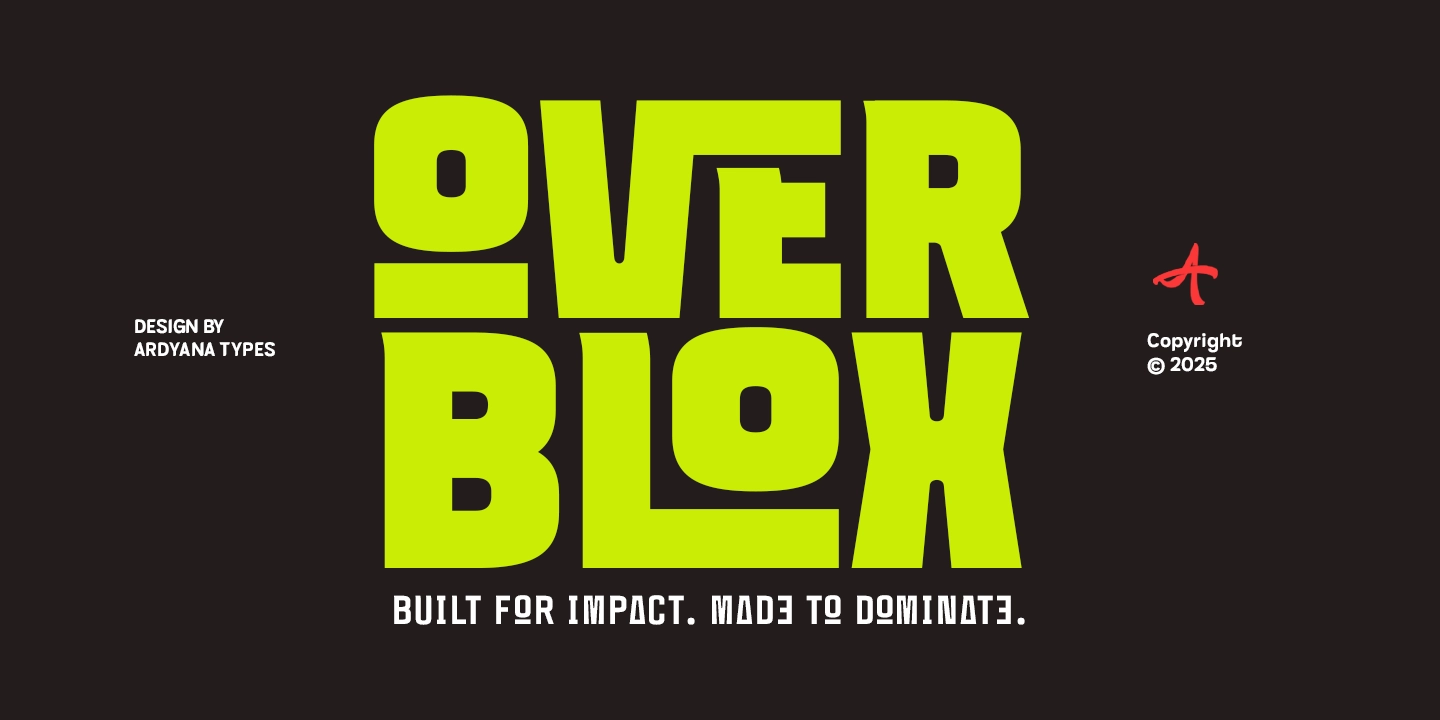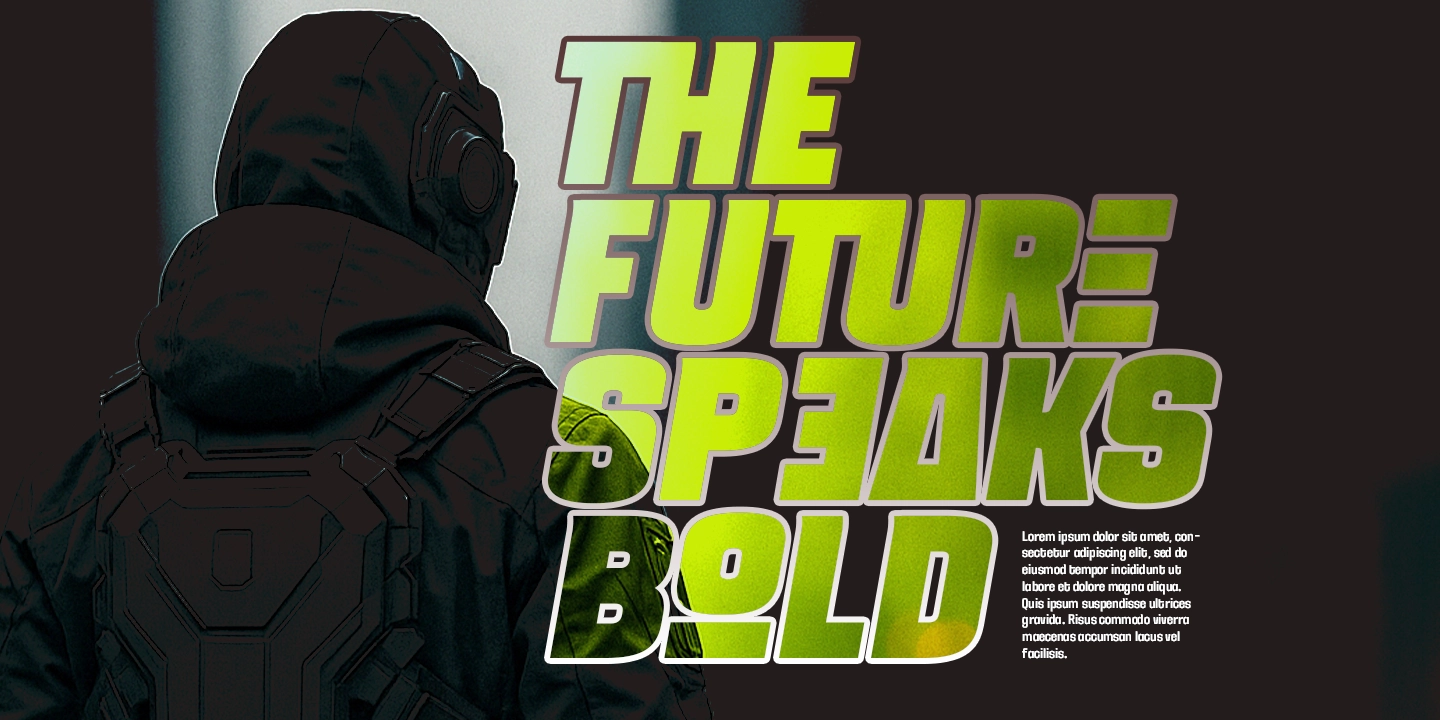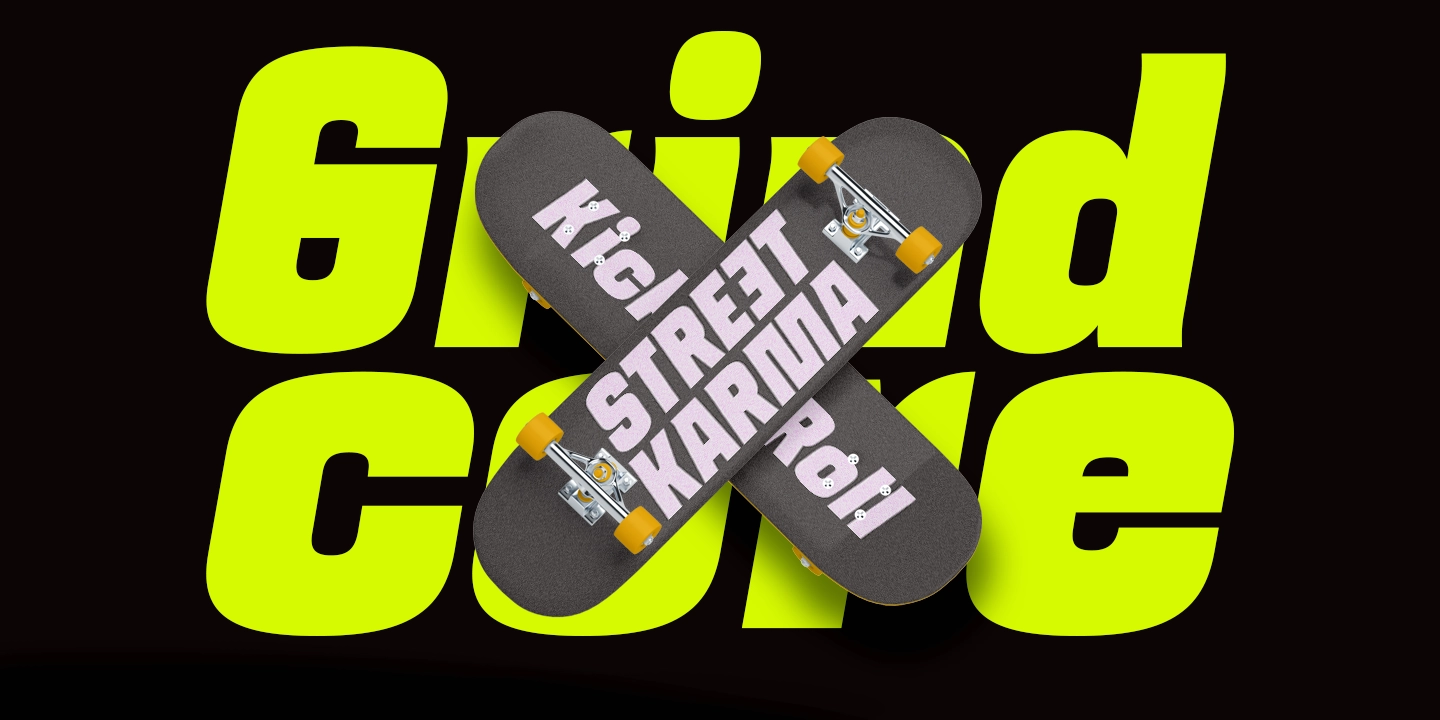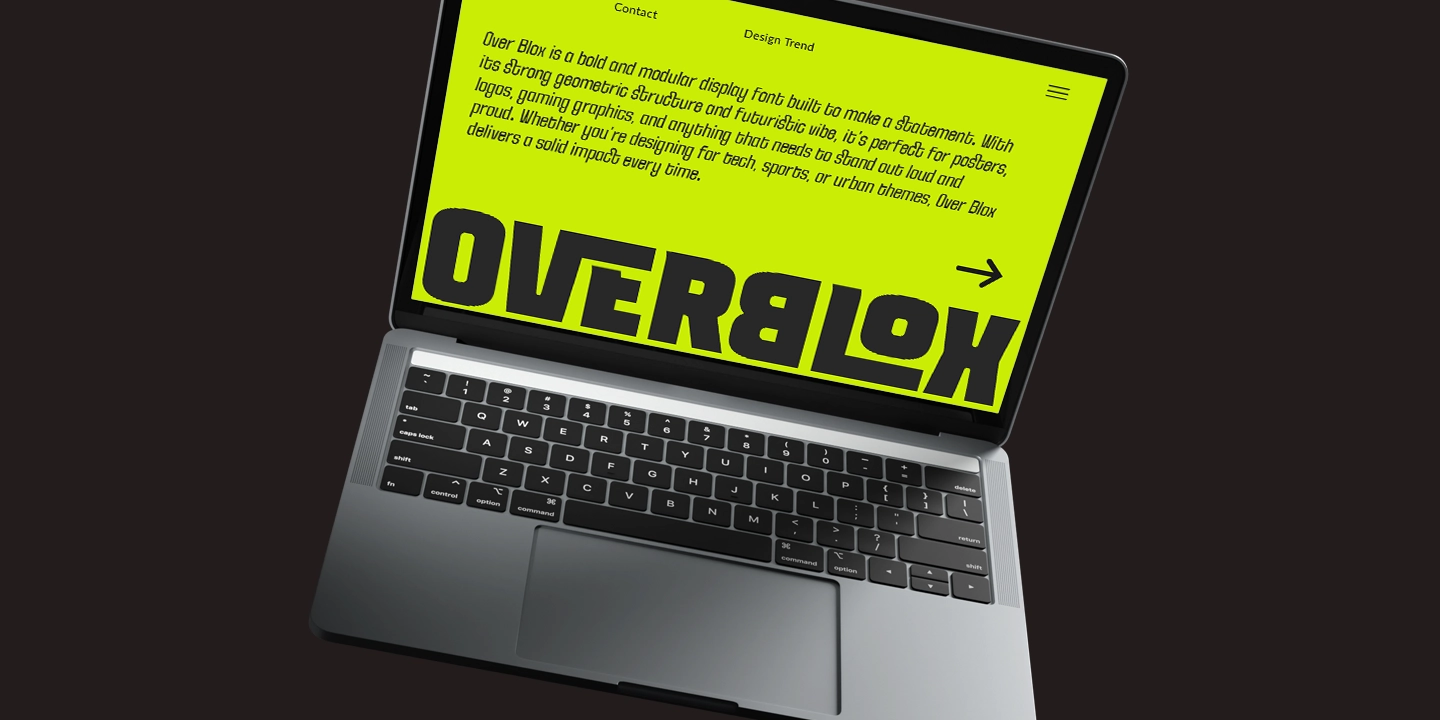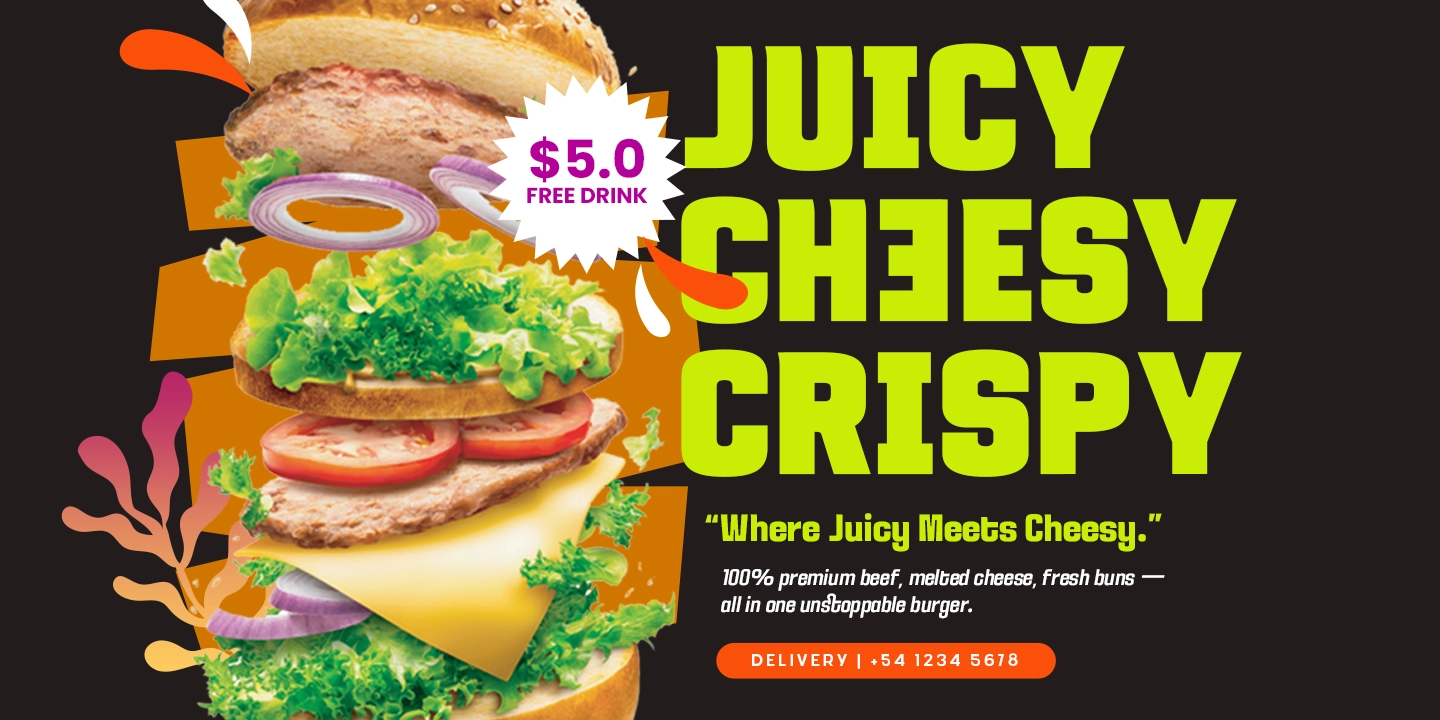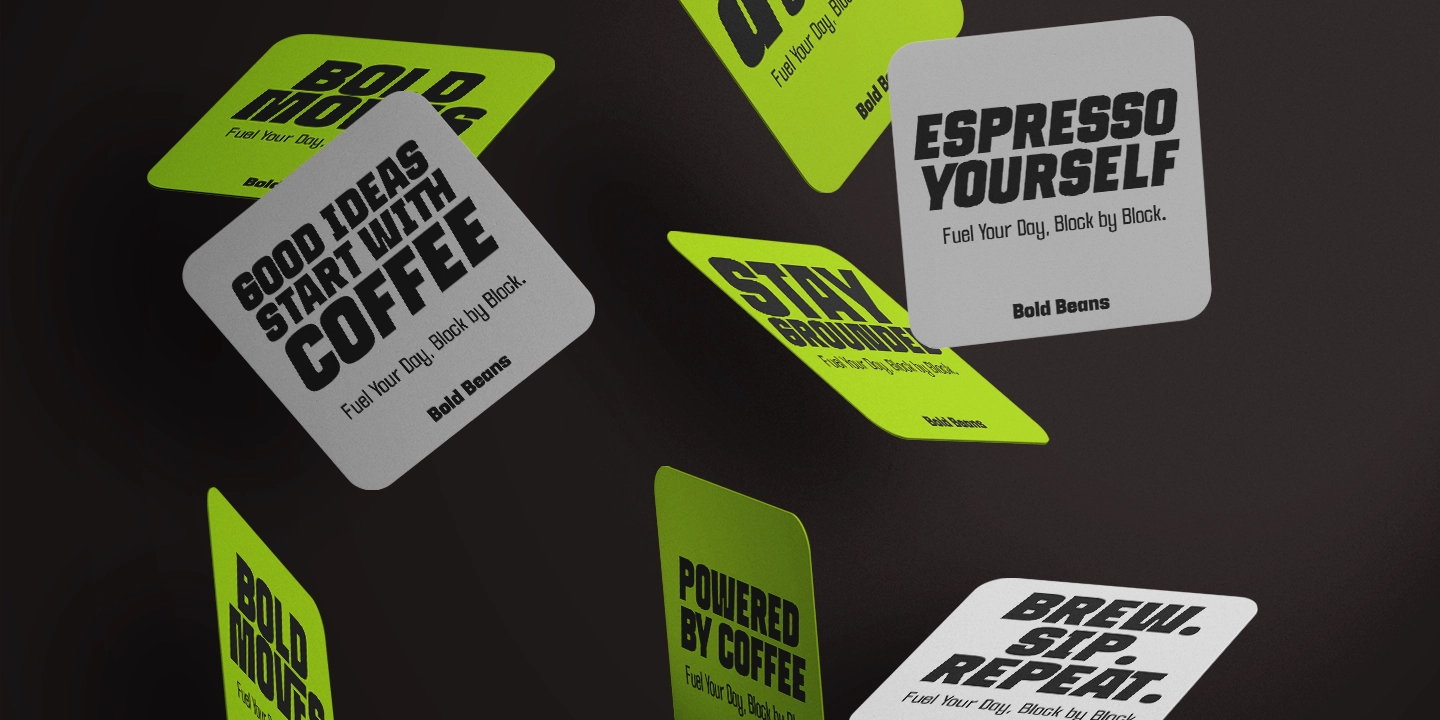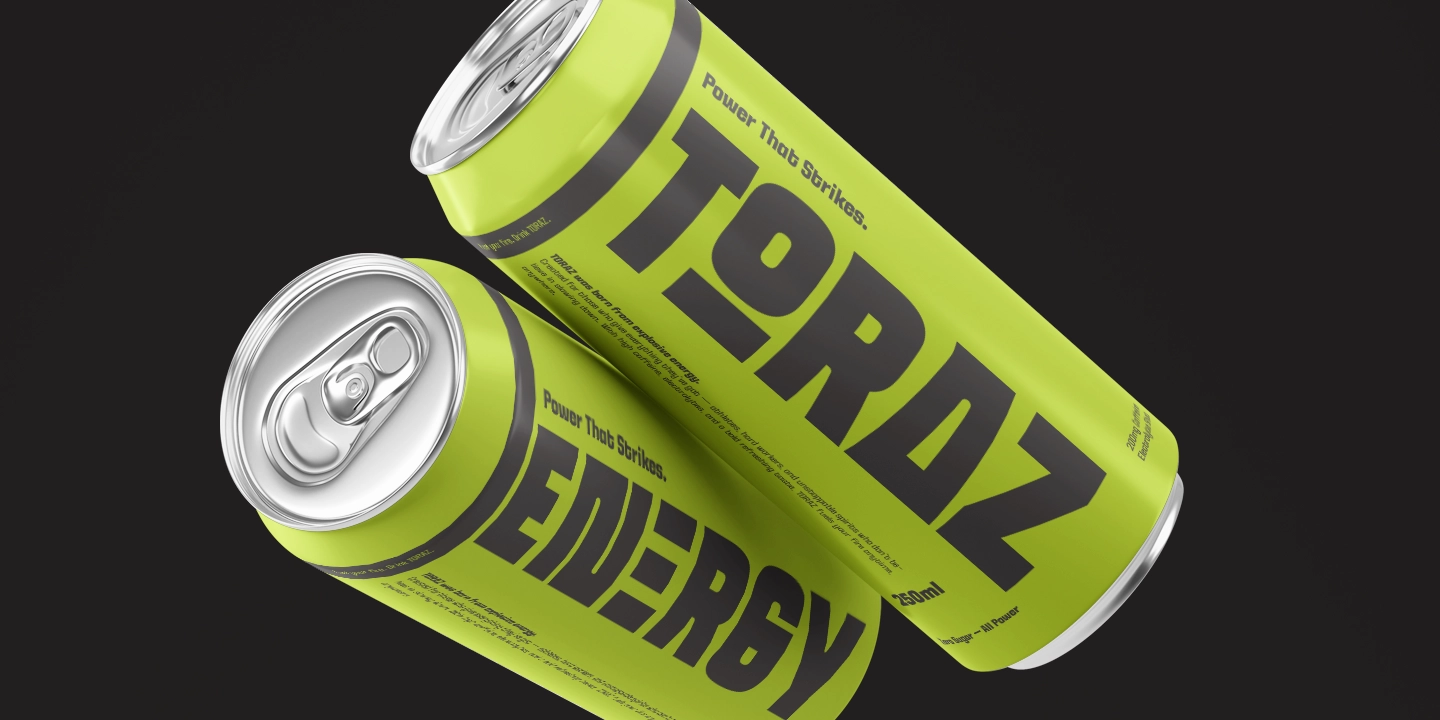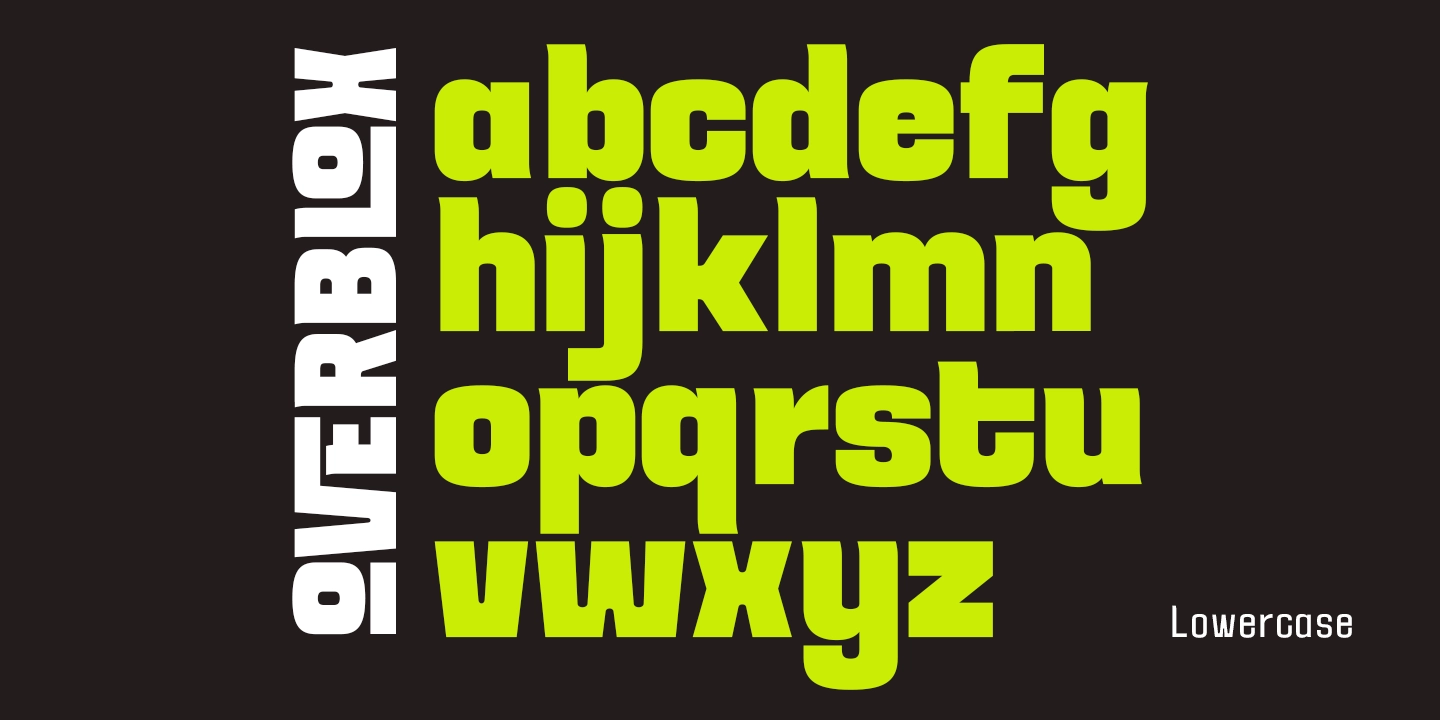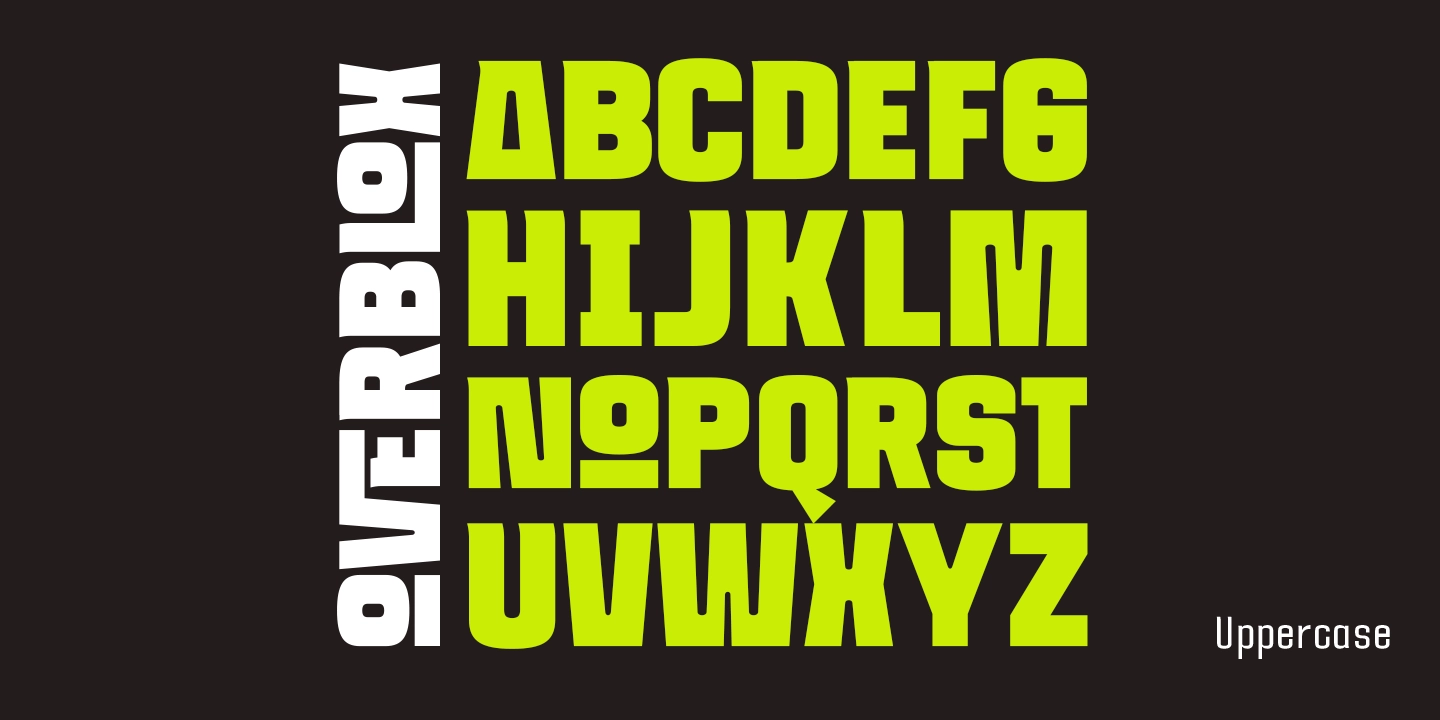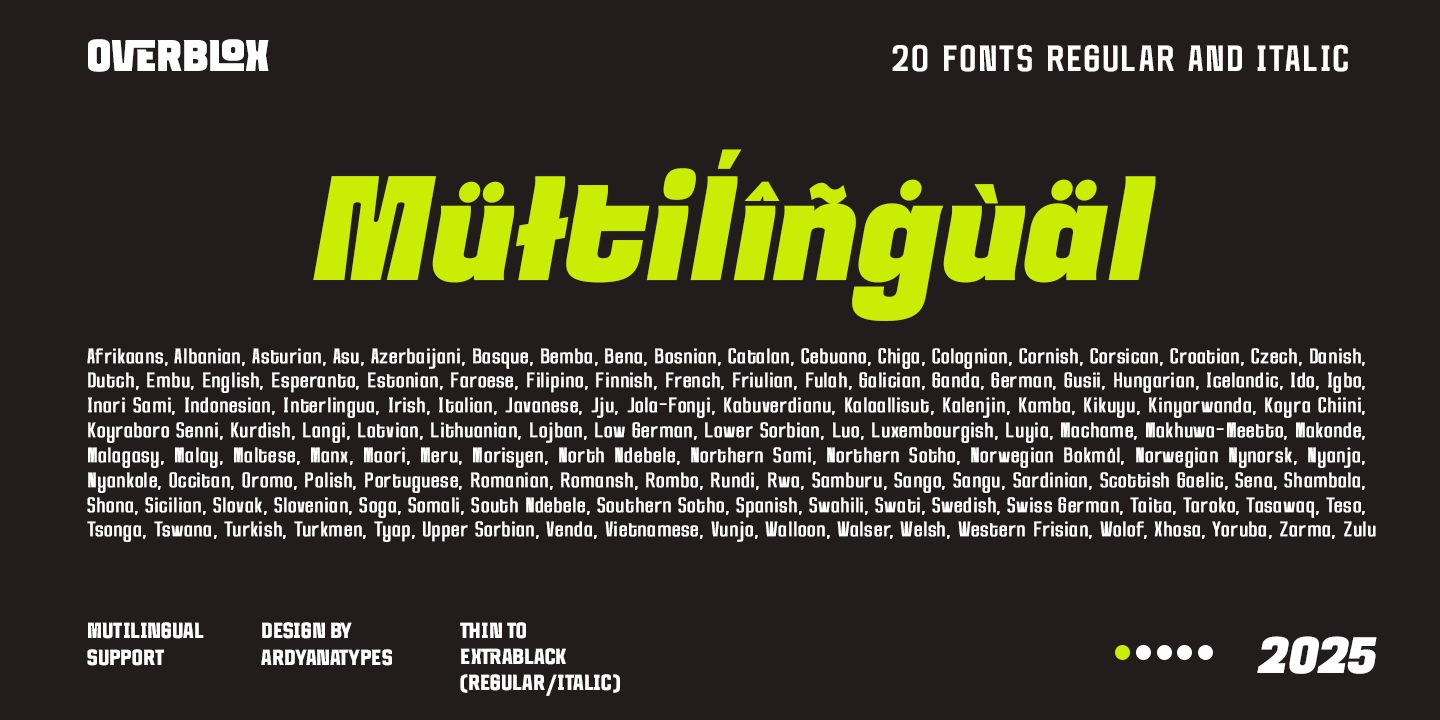
OVERBLOX is a bold display font built to hit hard and dominate every design. Featuring 20 styles from Thin to ExtraBlack, plus italic versions for Thin and ExtraBlack, OVERBLOX delivers ultimate versatility for all your creative needs. Its blocky, confident, and futuristic shapes make it perfect for streetwear branding, skateboard graphics, concert posters, game titles, and logos that demand attention.
With advanced features like ligatures and alternate characters, you can create unique, standout typography compositions. Plus, with multilingual support, it’s ready to go global.
If you’re looking for a typeface built for impact and made to dominate, OVERBLOX is your ultimate design weapon. Say goodbye to ordinary and start your next project with bold style!